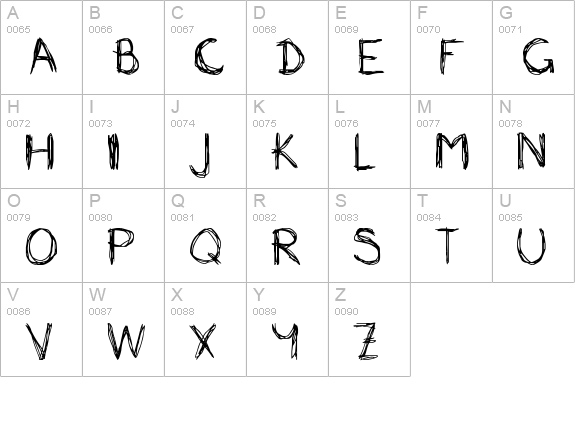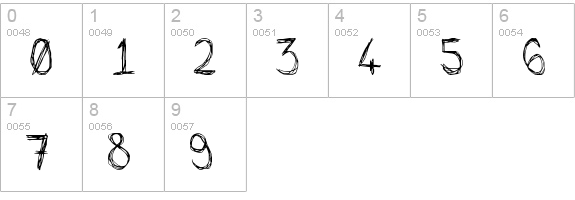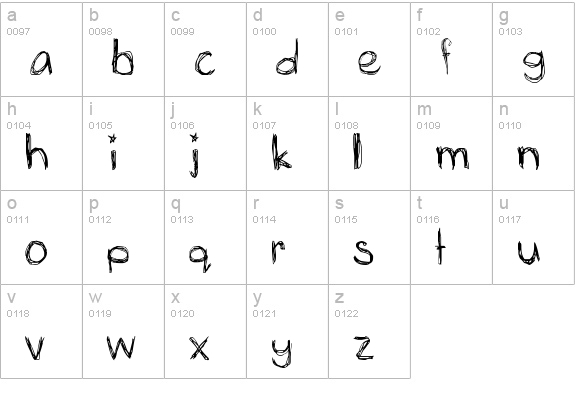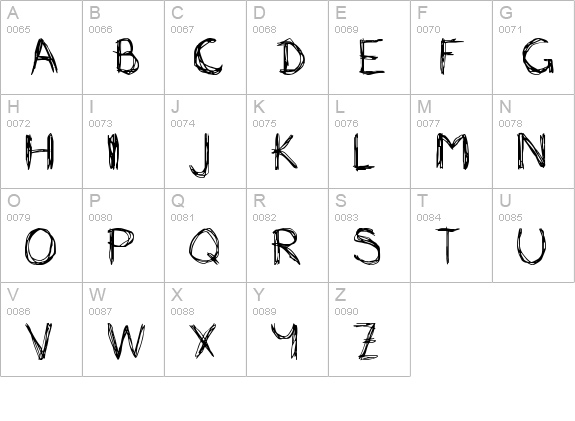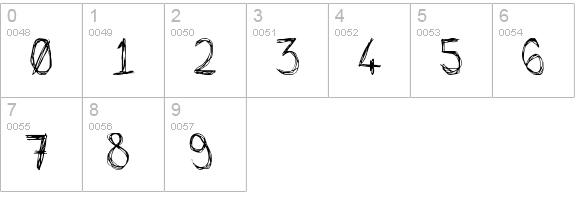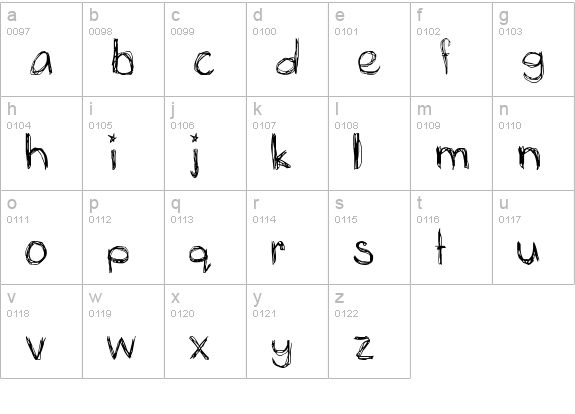
Mia's Scribblings font is a whimsical and playful typeface that captures the essence of hand-drawn doodles and scribbles. With its charming irregularities and unique character, this font brings a touch of creativity and spontaneity to your designs. Whether you're working on invitations, posters, or branding materials, Mia's Scribblings font is sure to add a fun and personal touch. Best of all, Mia's Scribblings font is completely free to download at FontsMarket.com. Don't miss out on this delightful font that will surely bring a smile to your audience's faces. Add a touch of whimsy to your projects with Mia's Scribblings font today!